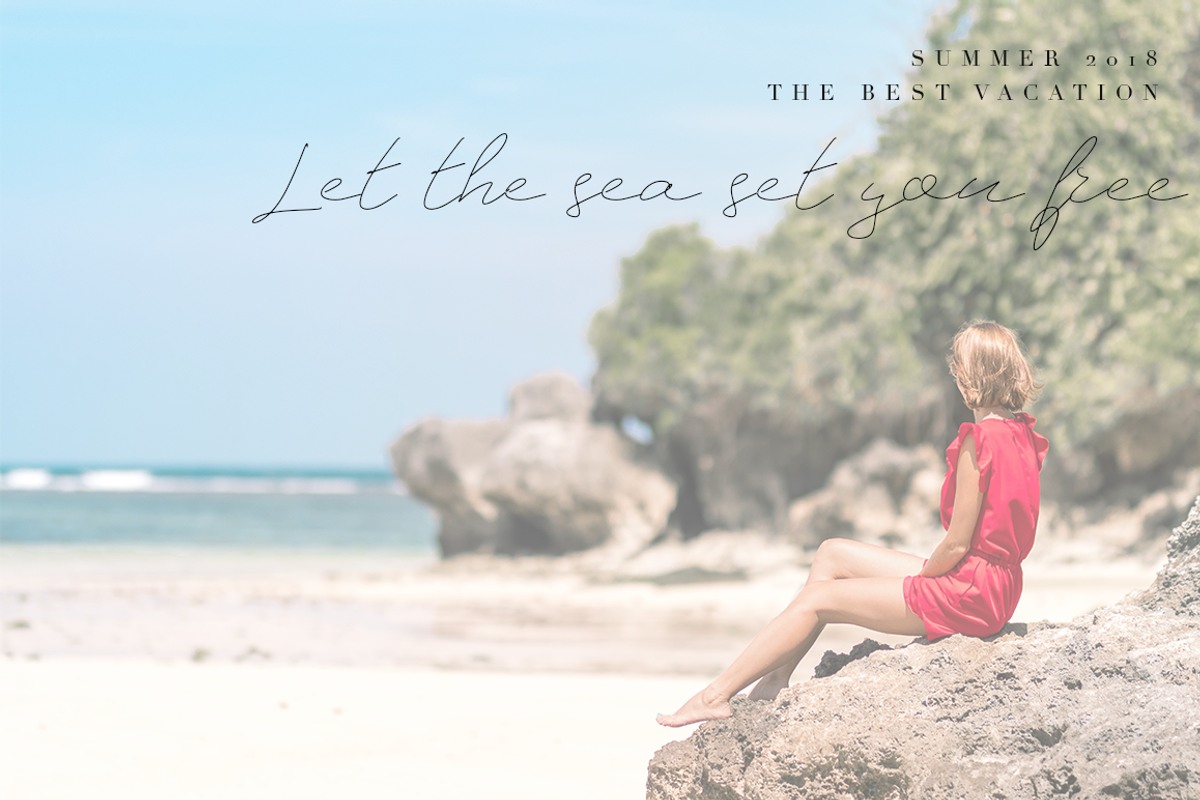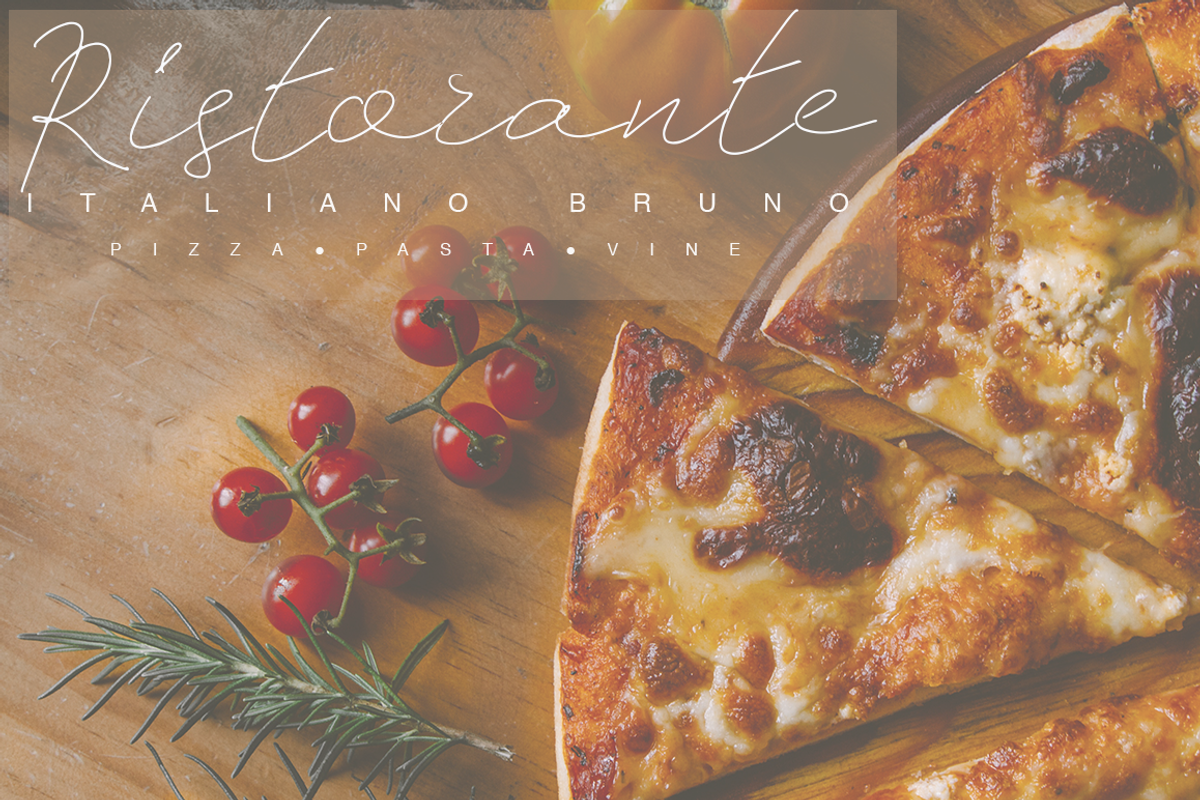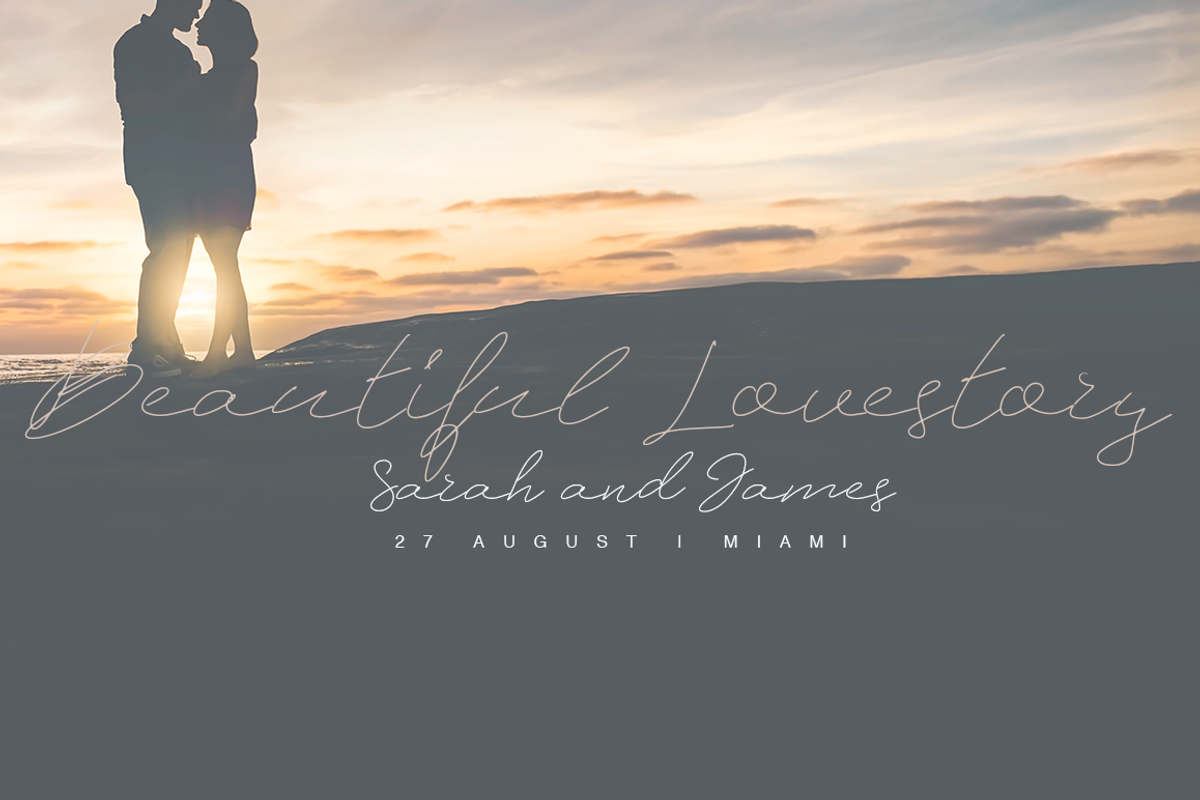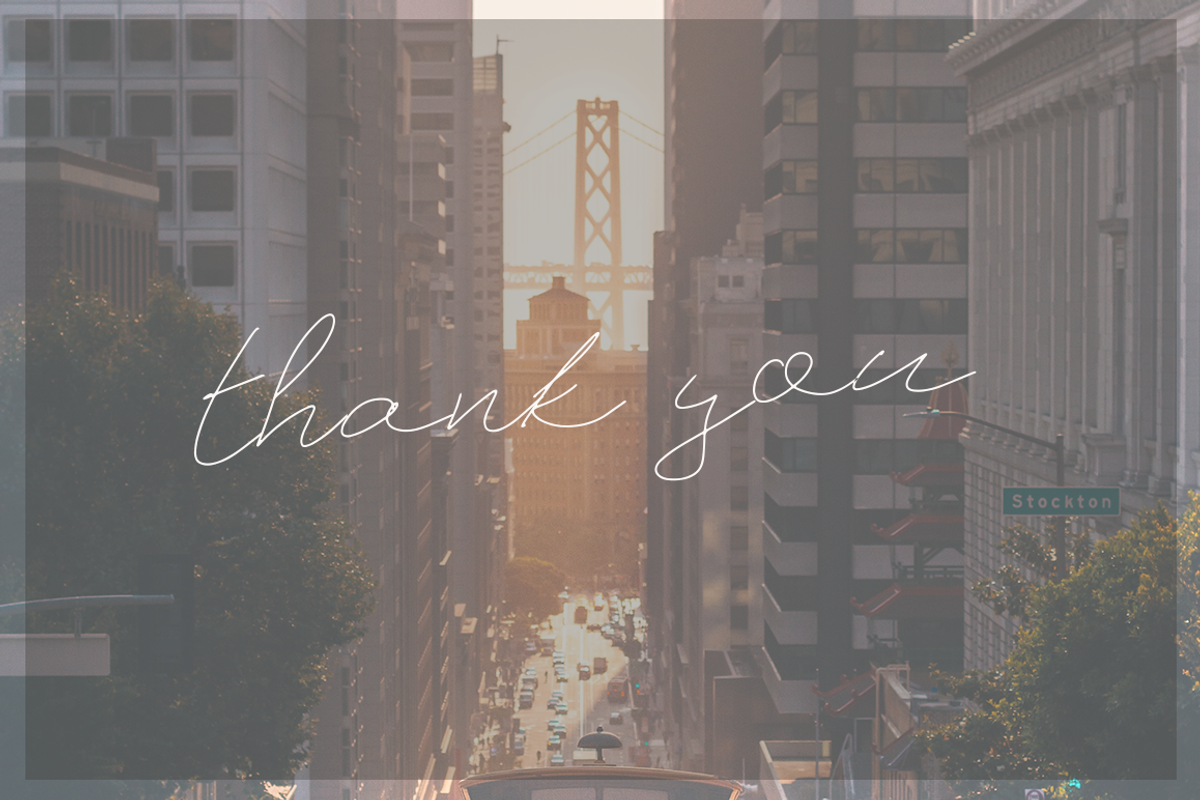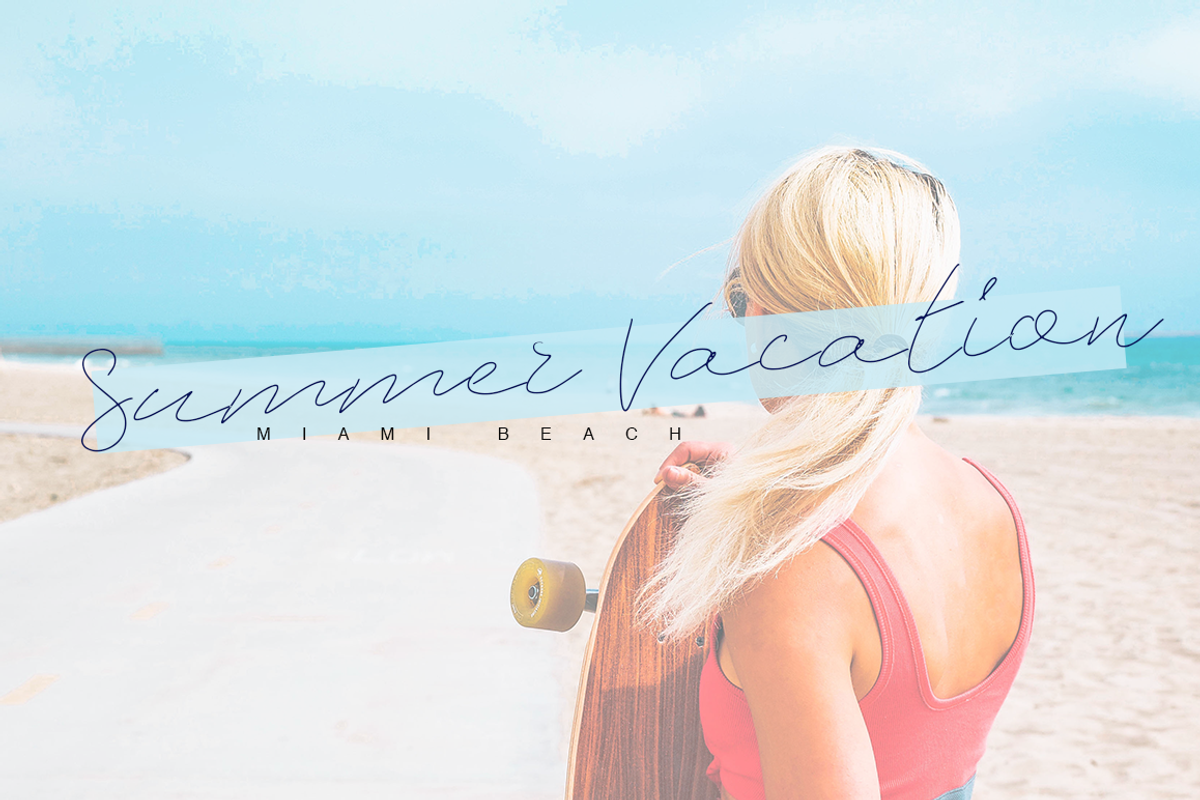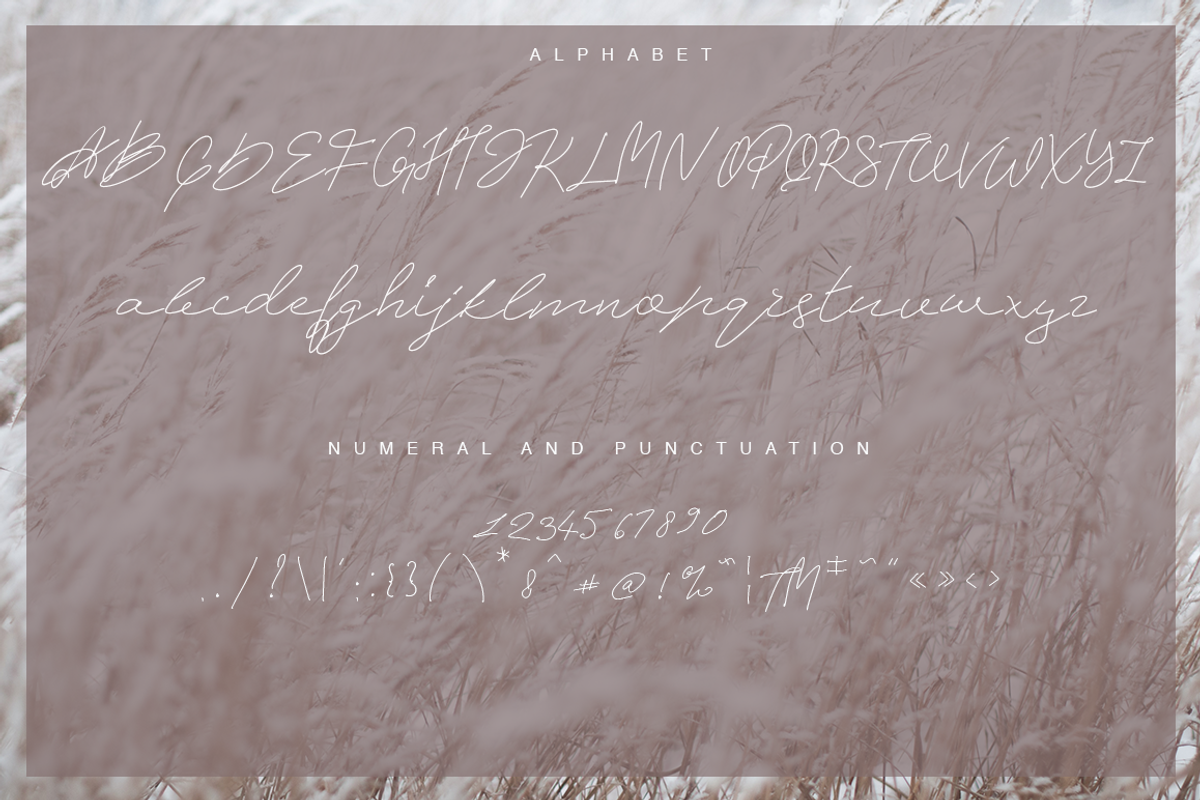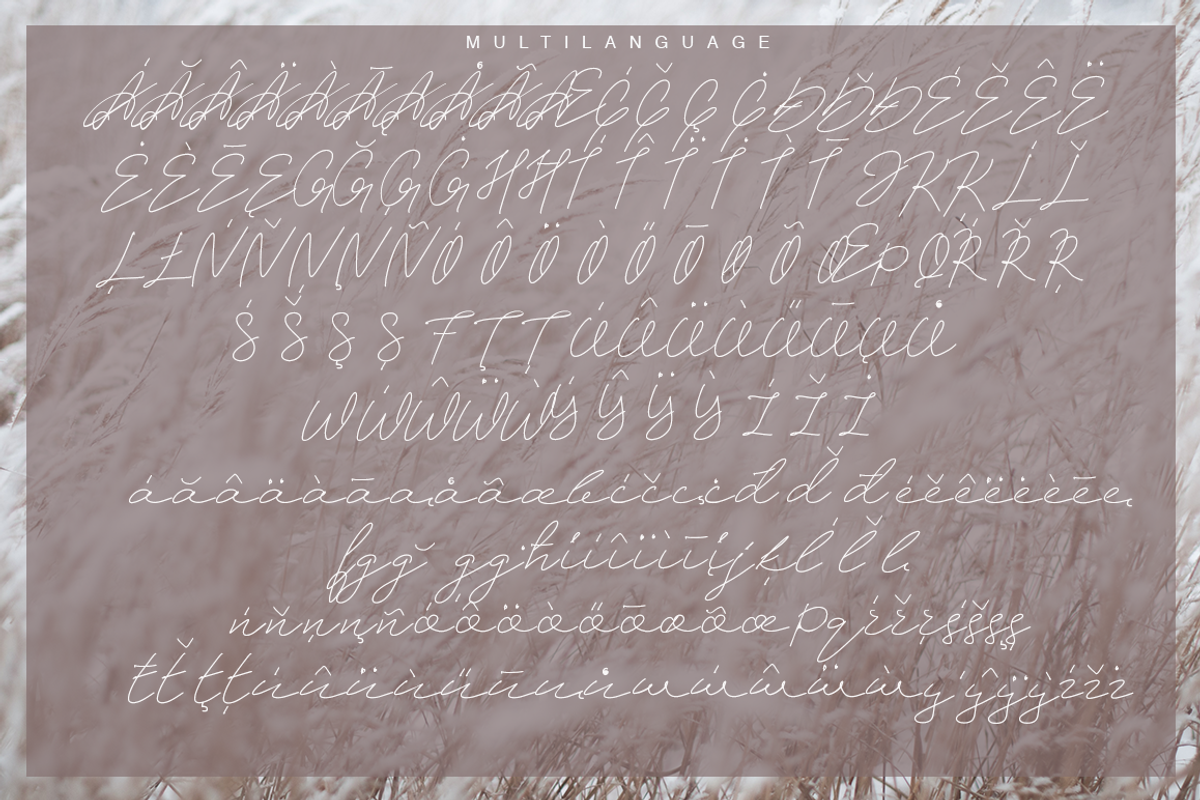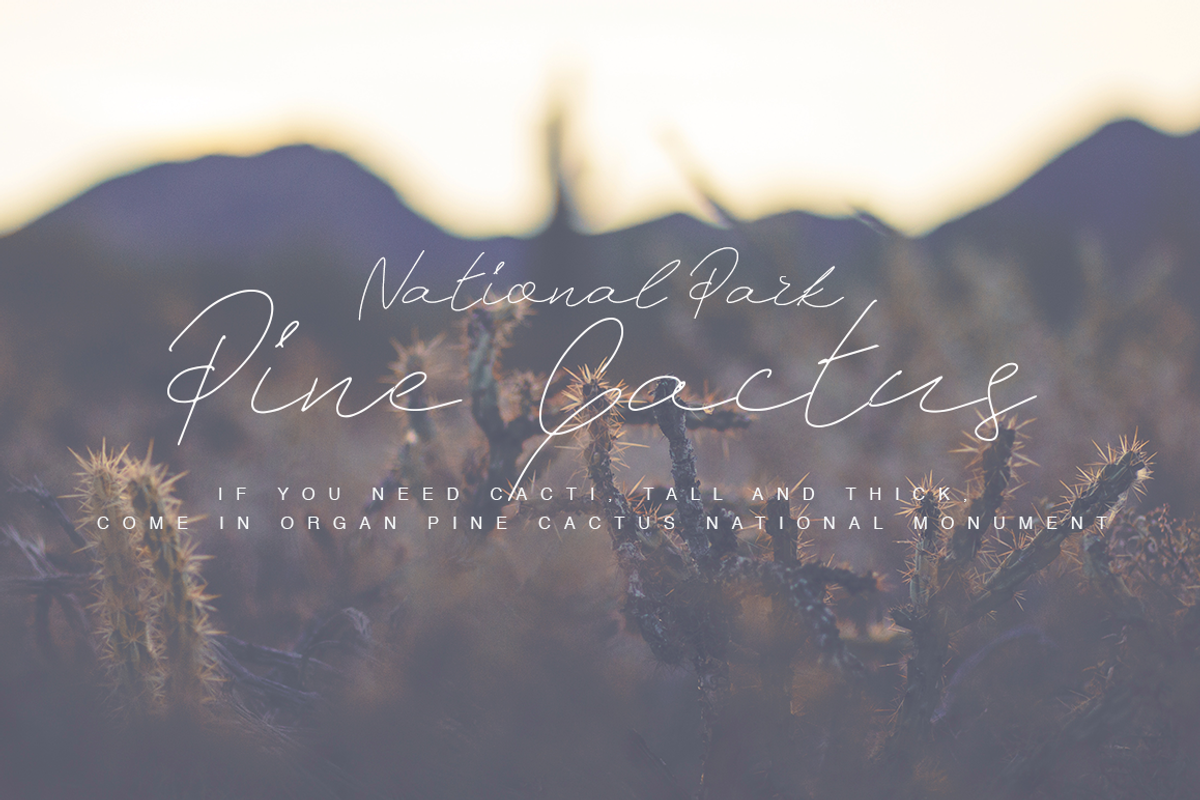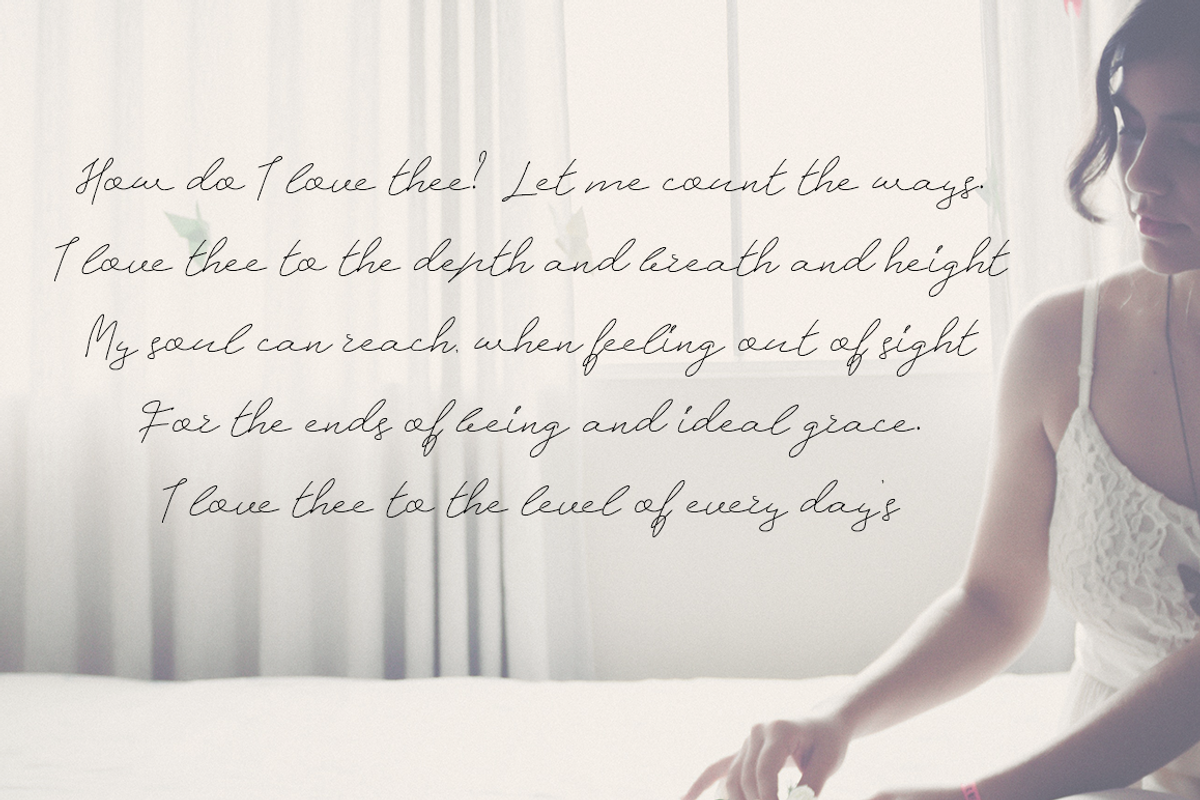
Introducing GORDEA Handwritten casual font with multilingual.
GORDEA is modern font, every single letters have been carefully crafted to make your text looks beautiful. With modern script style this font will perfect for many different project ex: logo, photography, watermark, quotes, blog header, poster, wedding, branding, logo, fashion, apparel, letter, invitation, stationery, etc. Gordea also includes Regular and Bold, full set of uppercase and lowercase letters, multilingual symbols, numerals, punctuation.
- UpperCase & Lowercase
- Multilingual characters (AÀÁÂÃÄÅCÇDÐEÈÉÊËIÌÍÎÏNÑOØÒÓÔÕÖUÙÜÚÛWYÝŸ?ŸÆŒßÞàáâãäåæçèéêëìíîïðñòóôõöøùúûüýÿ)